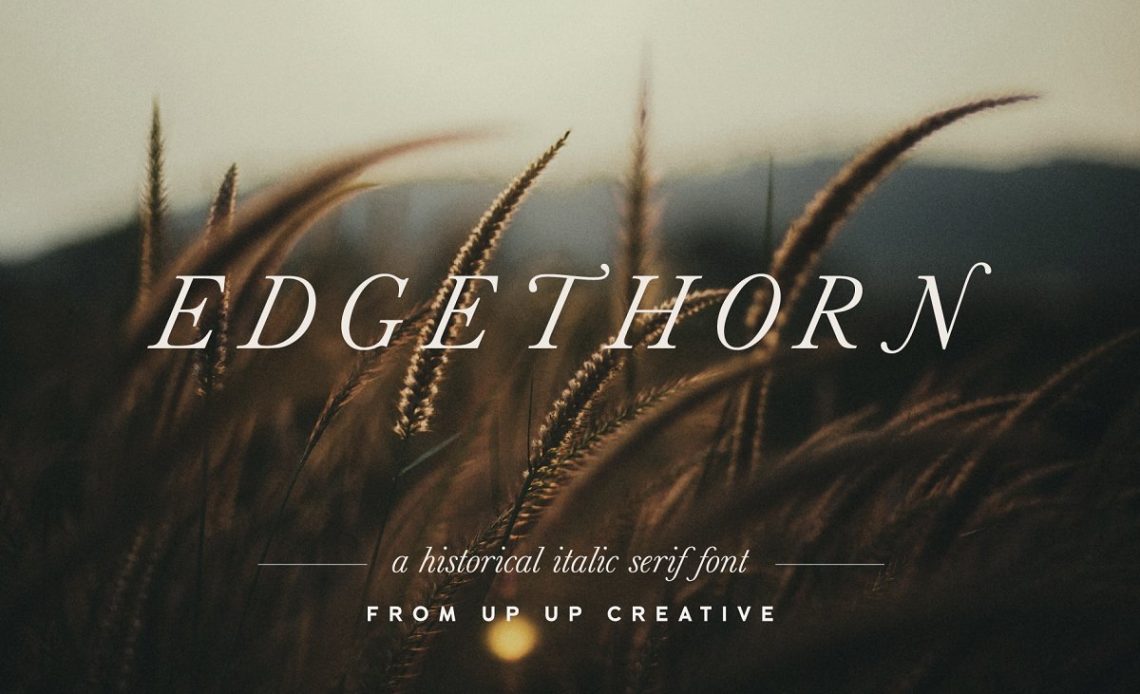
Edgethorn is a beautiful, italic-only transitional serif typeface that was born after I became obsessed with a few small paragraphs of italic text on a type specimen broadside from 1785. Working on this type revival allowed me to delve much more deeply than I ever have before into type history and typeface classification, and I’ve included some type history for you with your download so that you can play around with the smattering of historical characters I included (like the medial s).
Although it is based on centuries-old typefaces, Edgethorn is elegant, timeless, and perfect for 21st century projects.
Edgethorn includes approximately 525 glyphs — including 64 standard and discretionary ligatures and a handful of contextual alternates and character variants — and supports over 200 languages.